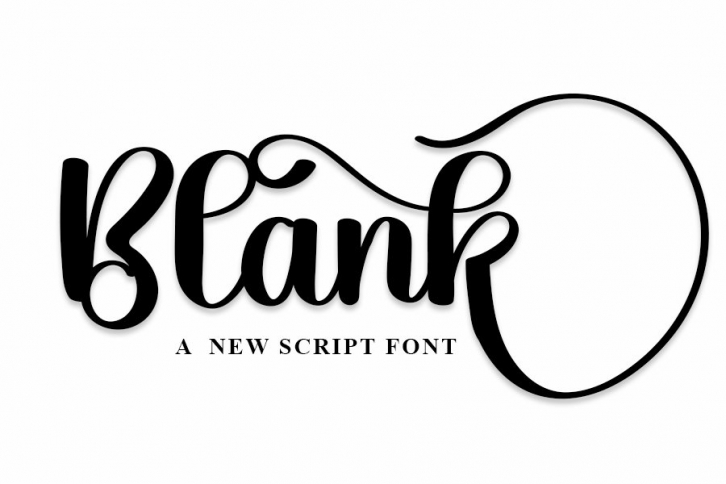
Blank is a trendy and unique font with an authentic style. It was designed by FreshType INK and it's a great choice for creative people who need such a font. It was released on October 24, 2022 and the file size is 17.98 MB. Blank will add an organic vibe to any design idea!